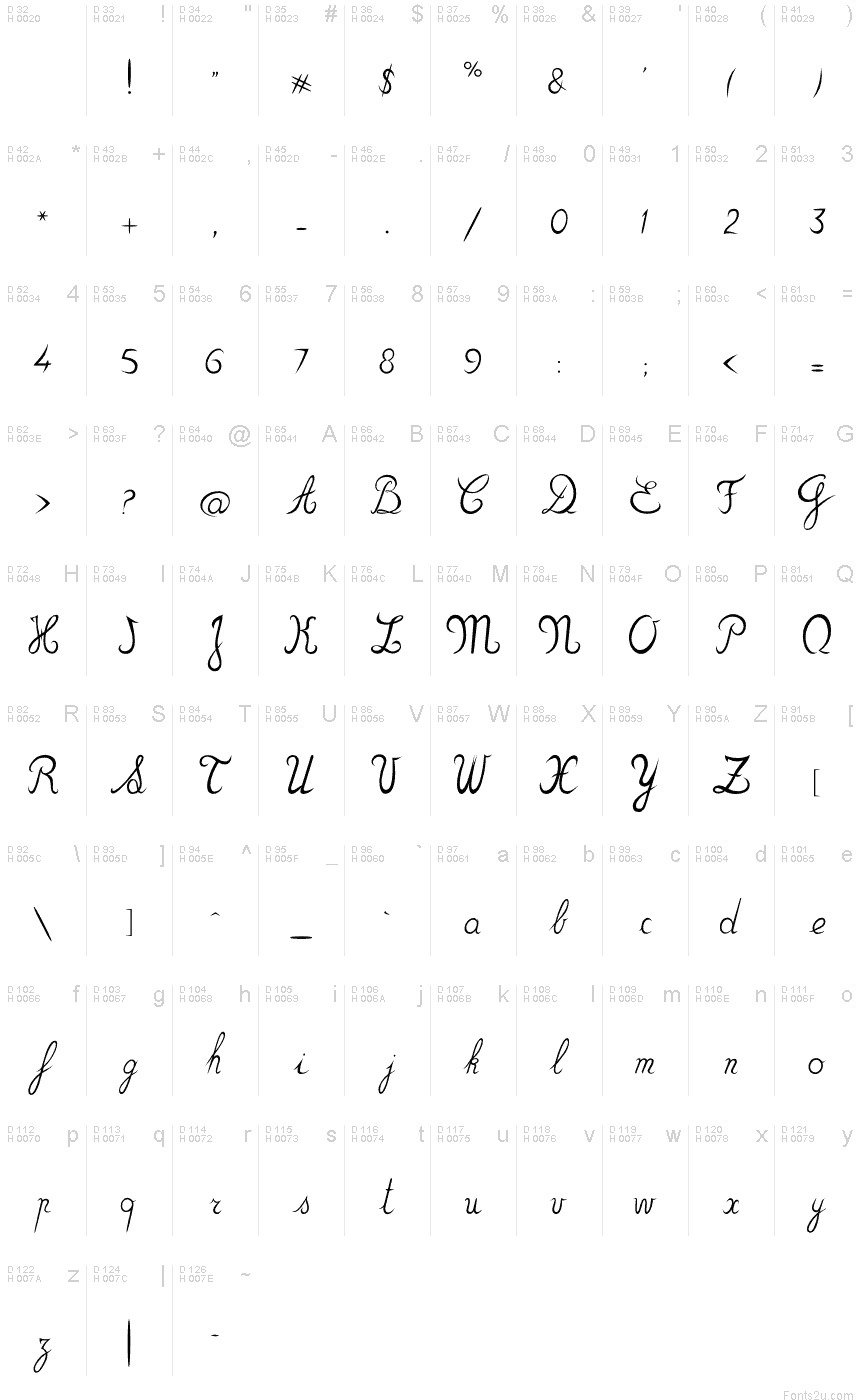
Zou70s by Magalba is a free calligraphic script with dramatic flourishes and a distinctly theatrical sweep. Strong shifts between hairline strokes and broad curves give the letters lively contrast. Tall loops, curling entries, and long descending strokes make the writing feel ornate yet airy.
Those extended curves can echo ribbons, vines, or line-drawn decoration in fashion packaging and event invitations. It also suits music posters and editorial features with a glamorous editorial character. In these settings, the lettering can become part of the illustration, weaving through borders or motifs.